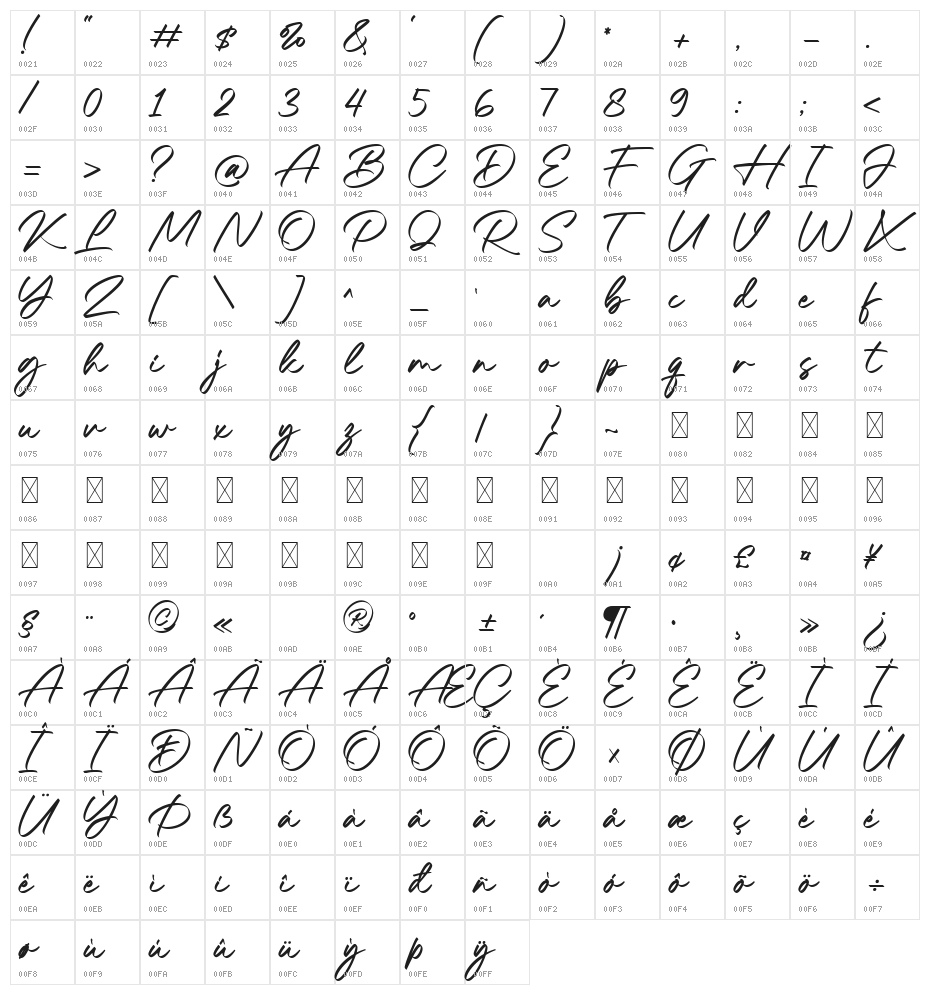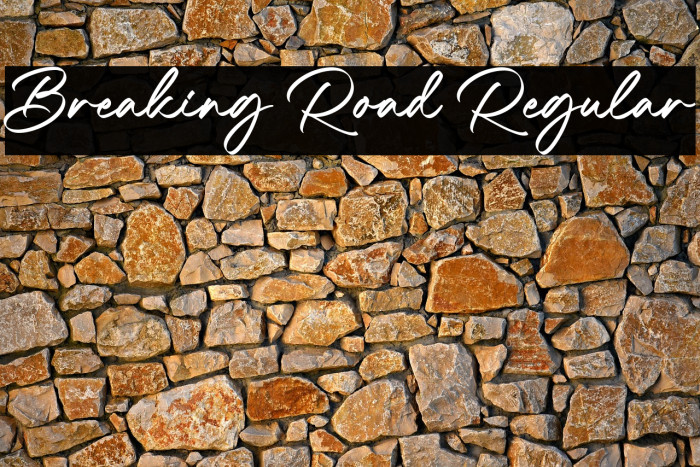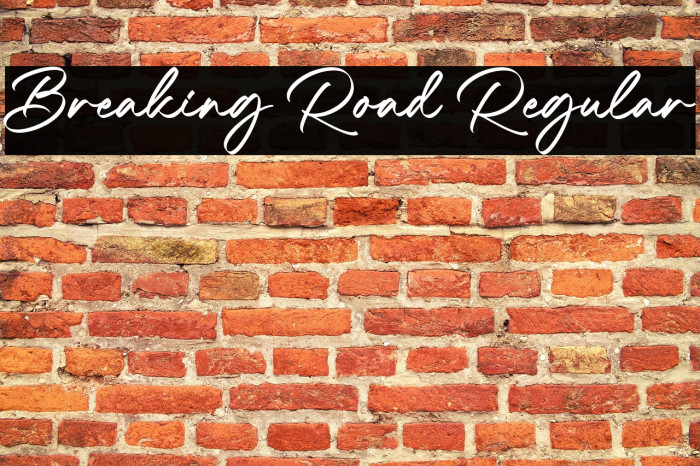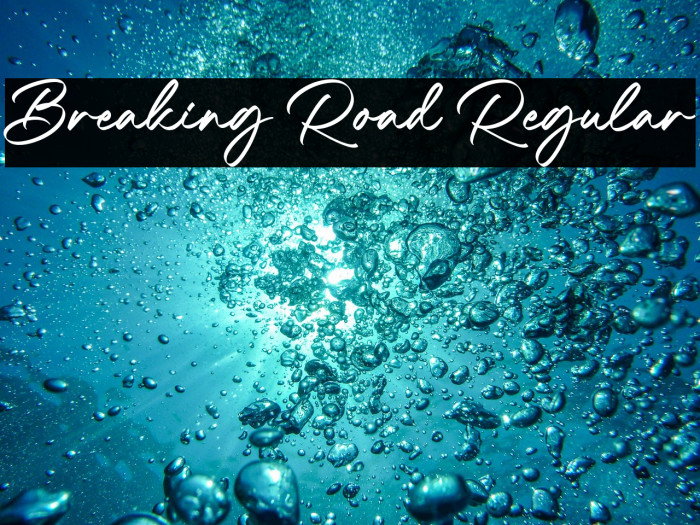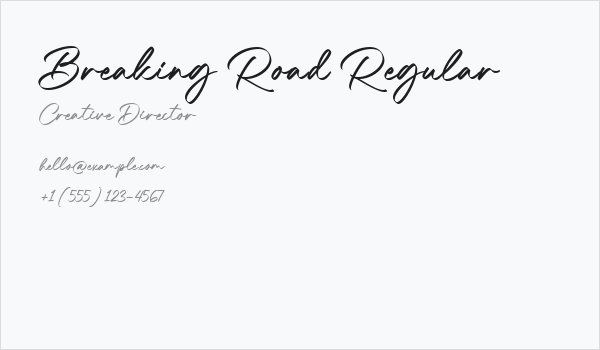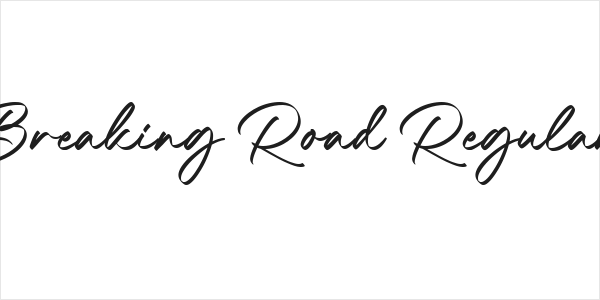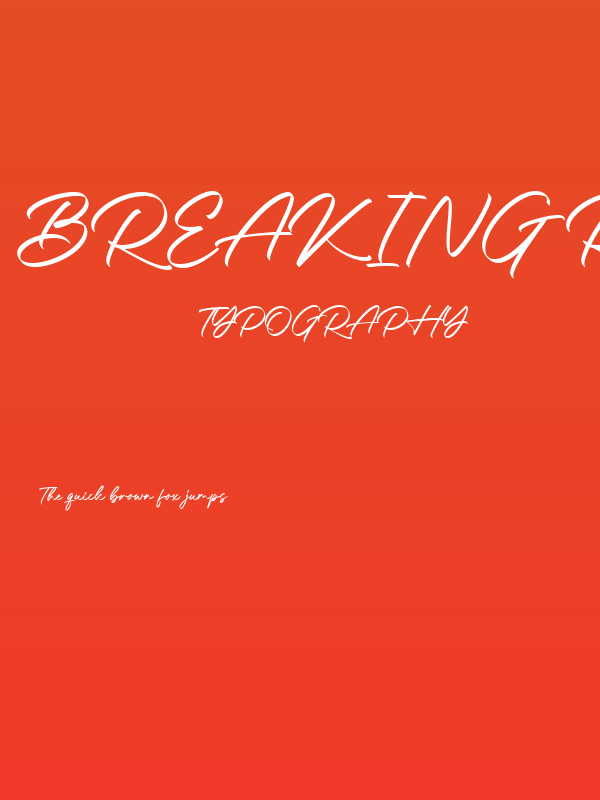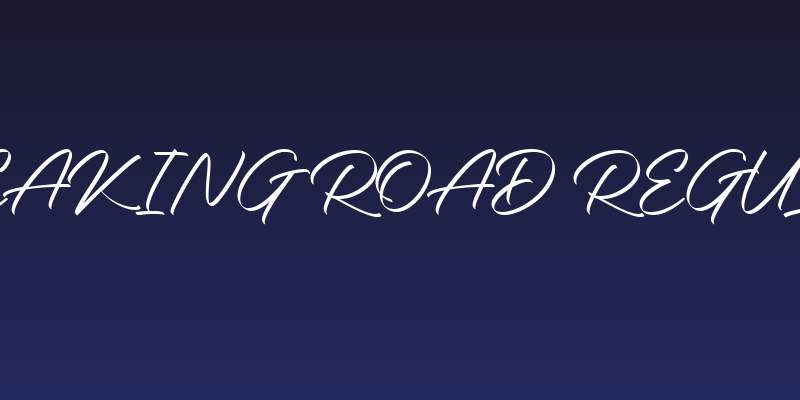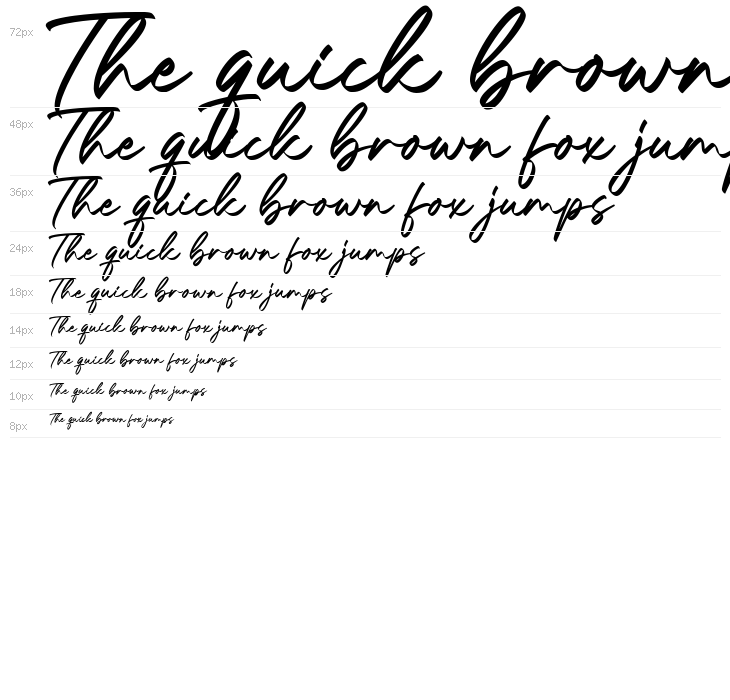
Breaking Road Regular Font
Breaking Road Regular Description
A flowing, cursive script font with a handwritten style, featuring smooth, connected letters and a casual, elegant appearance.
| Overall Style | Casual, Elegant |
| Use Case | Logos, Headlines, Personal notes |
| Proposed Projects | Invitations, greeting cards, personal branding. |